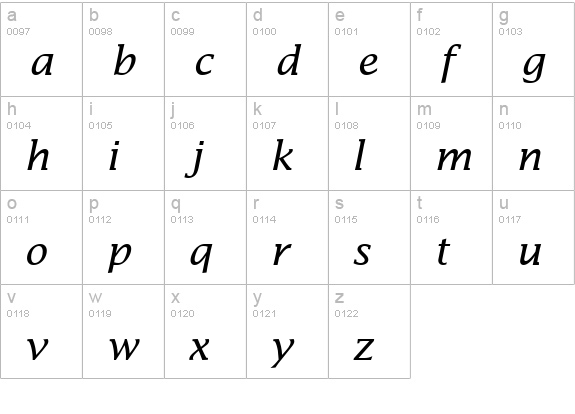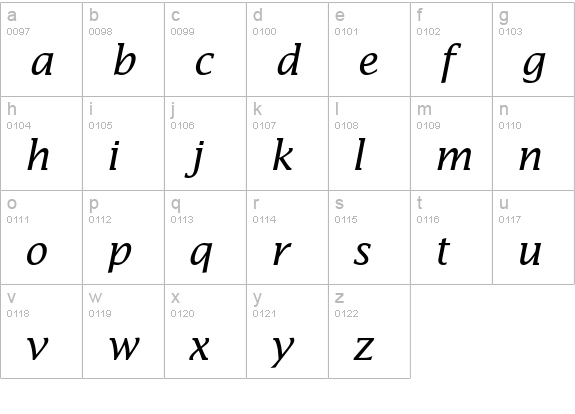
Insight Math SSi Italic Font Details
Insight Math SSi Italic is a distinctive, italic variant in the Insight typeface family \xE2\x80\x94 well suited to design and typography projects.
Insight Math SSi Italic font is a stylish and professional typeface that combines elegance with a touch of playfulness. Its sleek and slanted design adds a unique and modern twist to any project, making it perfect for a wide range of applications such as logos, headlines, and body text. Featuring clean lines and precise curves, Insight Math SSi Italic font exudes sophistication and clarity. Its italicized form adds a sense of dynamism and movement, making it a versatile choice for conveying energy and creativity in your designs. One of the best things about Insight Math SSi Italic font is that it is available for free! You can easily download this font at FontsMarket.com, a trusted source for high-quality fonts. Whether you are a student, a designer, or a creative professional, having access to this font without any cost is a fantastic opportunity to elevate your projects without stretching your budget. With its extensive character set including lowercase and uppercase letters, numbers, punctuation, and special characters, Insight Math SSi Italic font offers ample flexibility for expressing your ideas. Its legibility and readability ensure that your message is conveyed with clarity, making it suitable for both print and digital media. Whether you are designing a poster, creating a website, or crafting a presentation, Insight Math SSi Italic font will add a touch of elegance and sophistication to your work. Its unique style and freely available download make it an excellent choice for anyone looking to make a lasting impression with their designs.